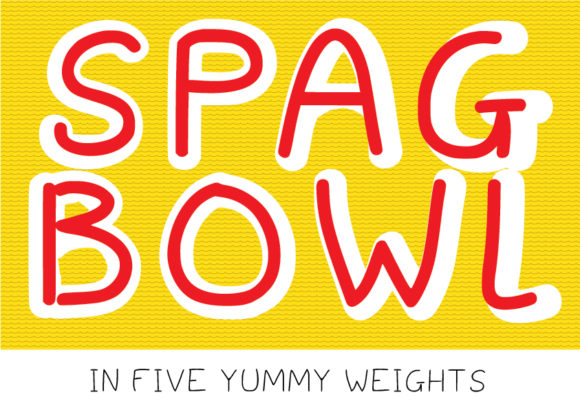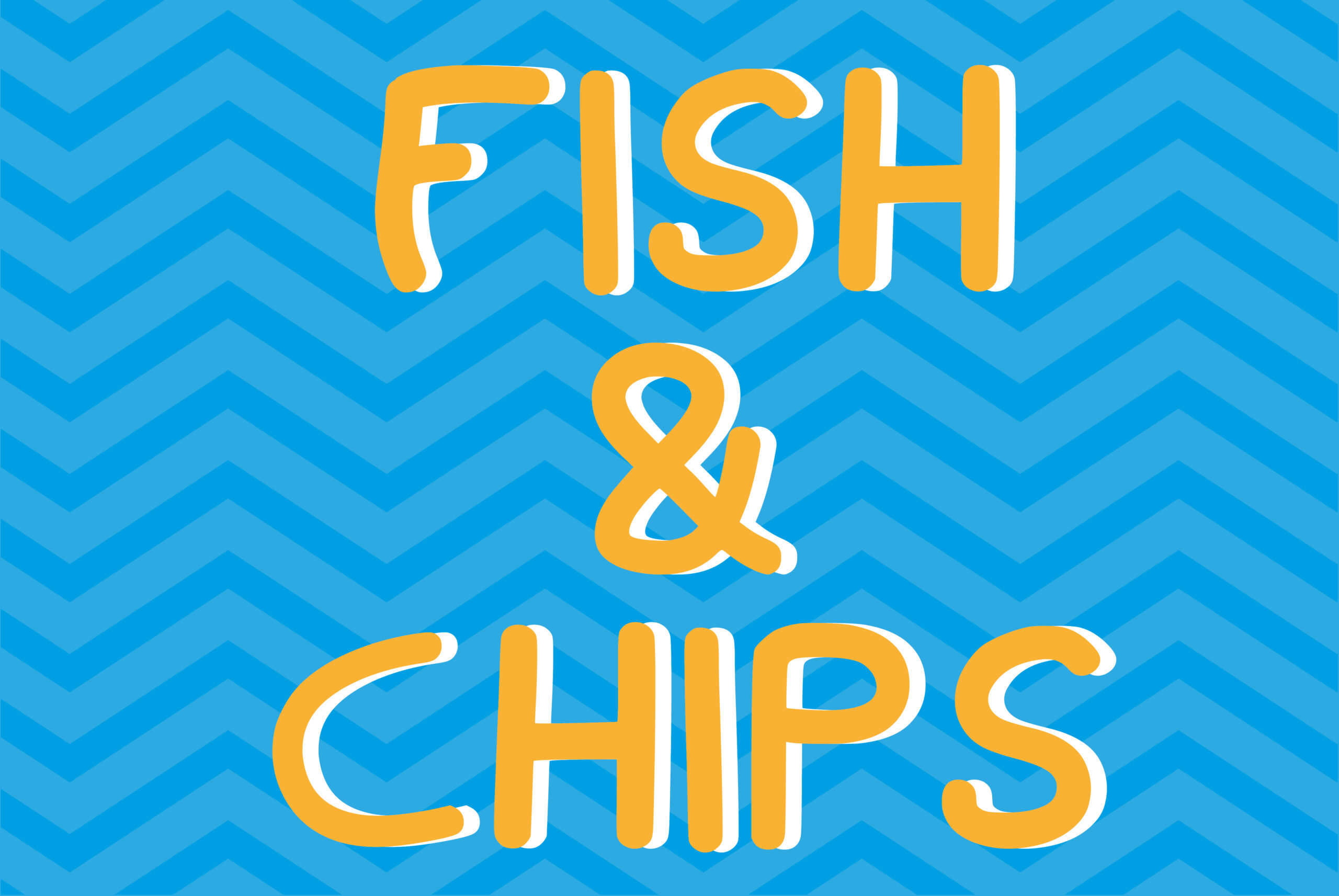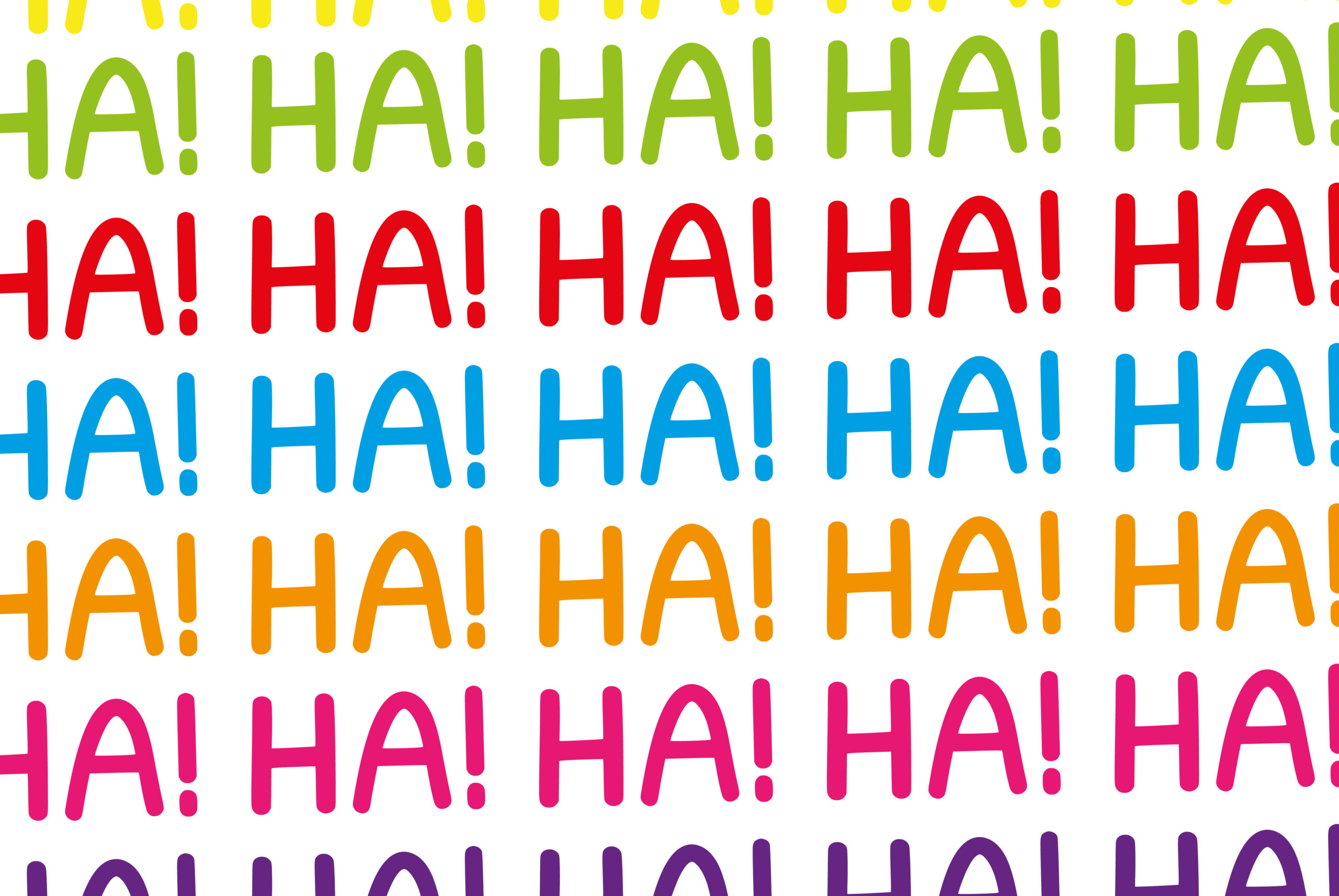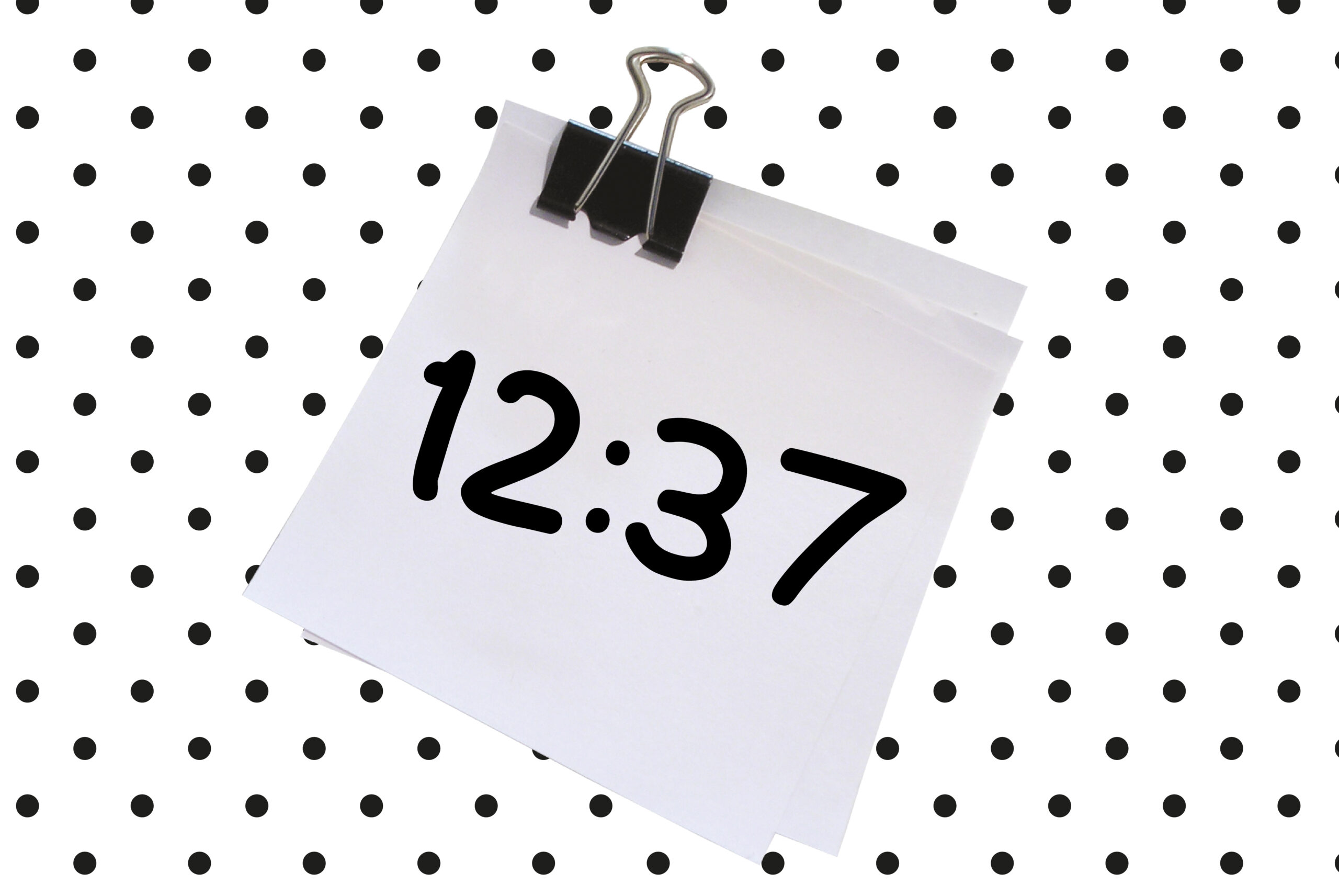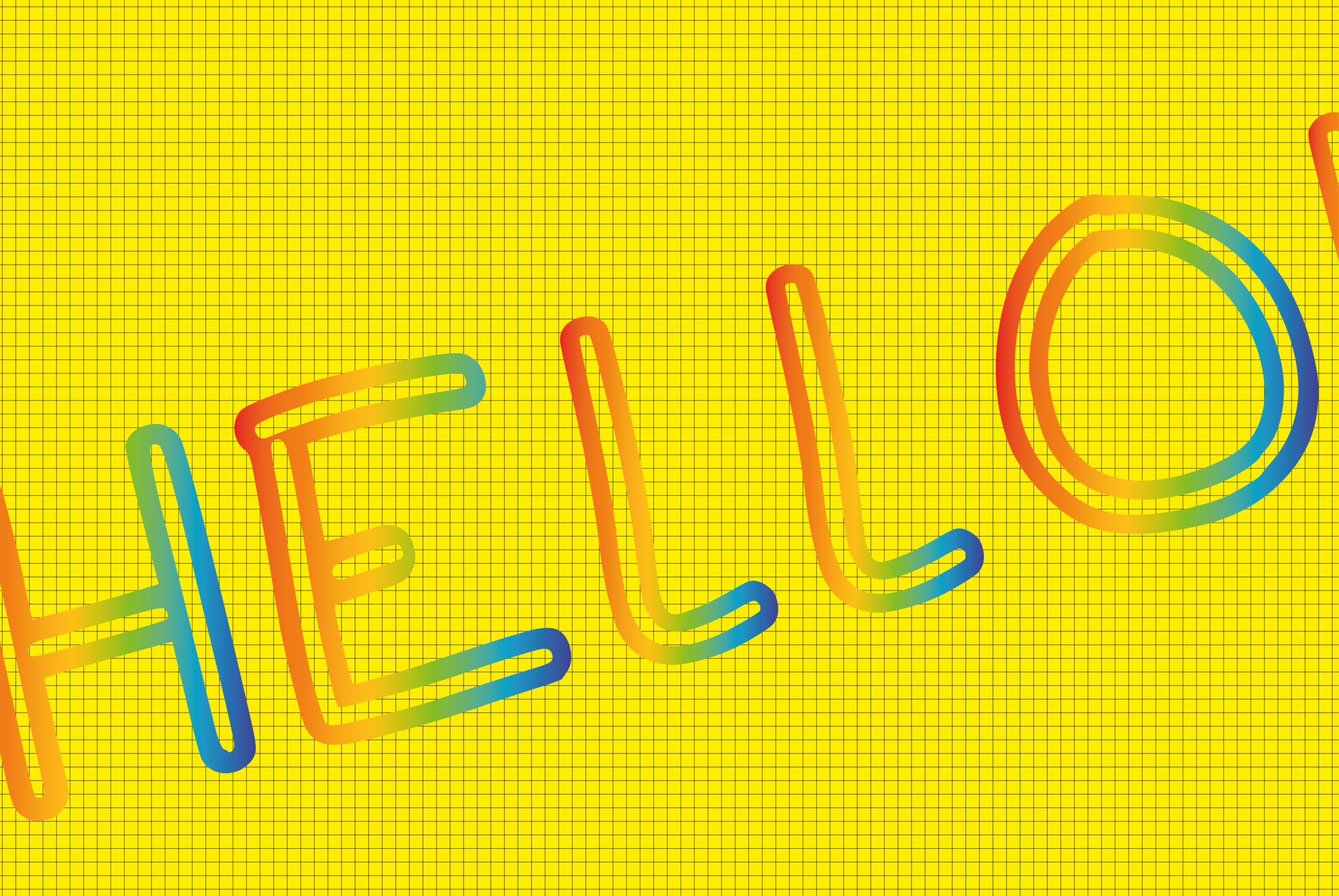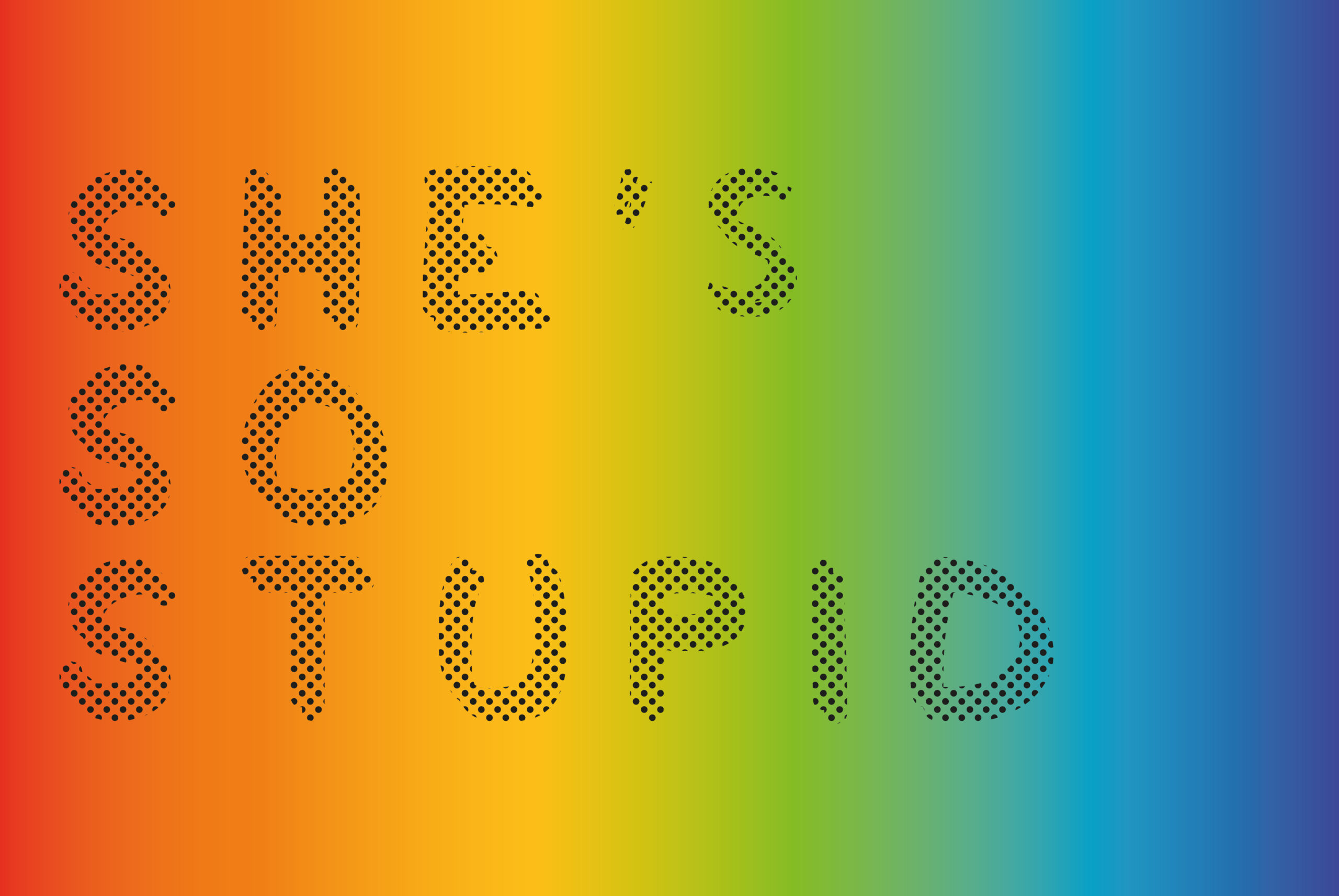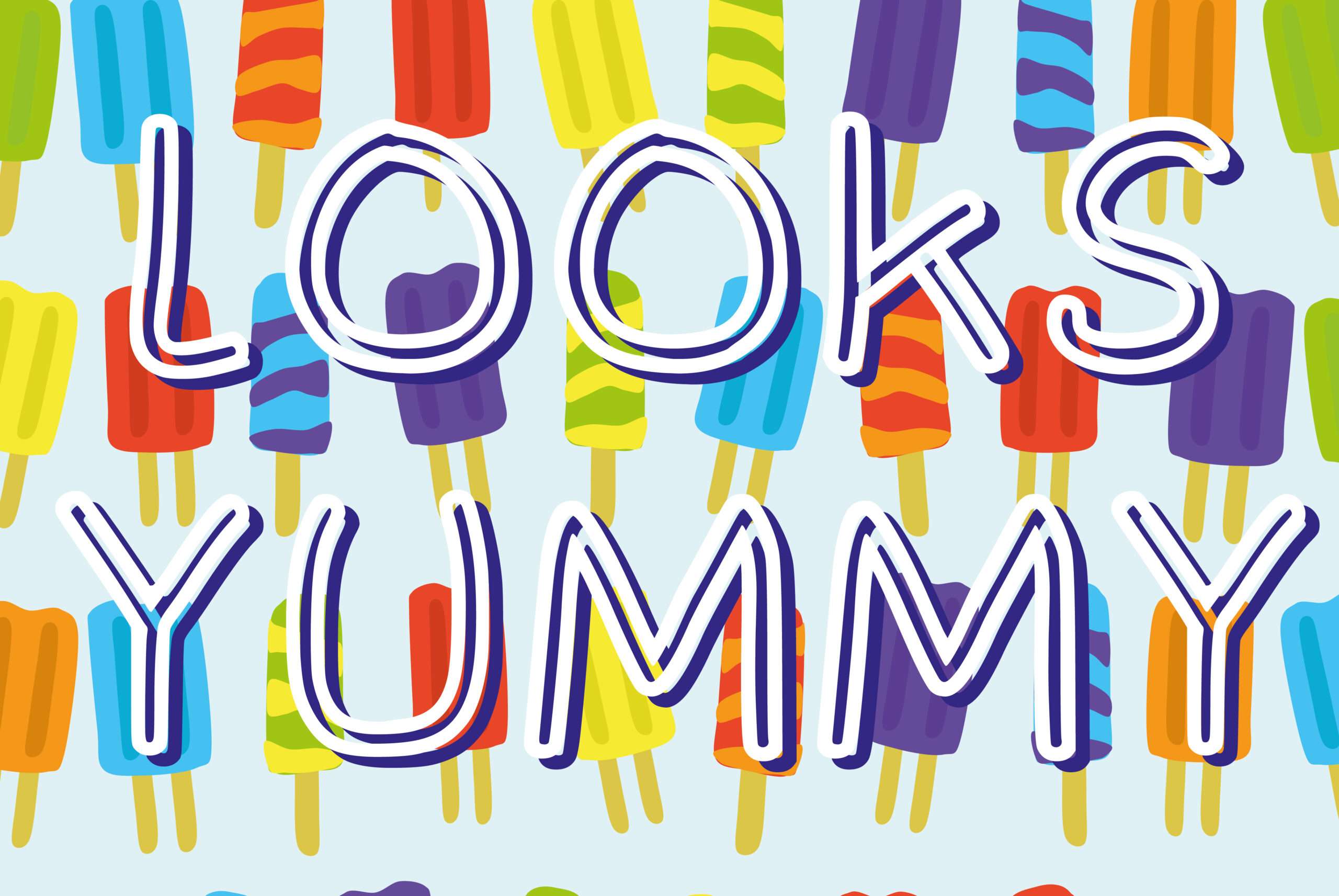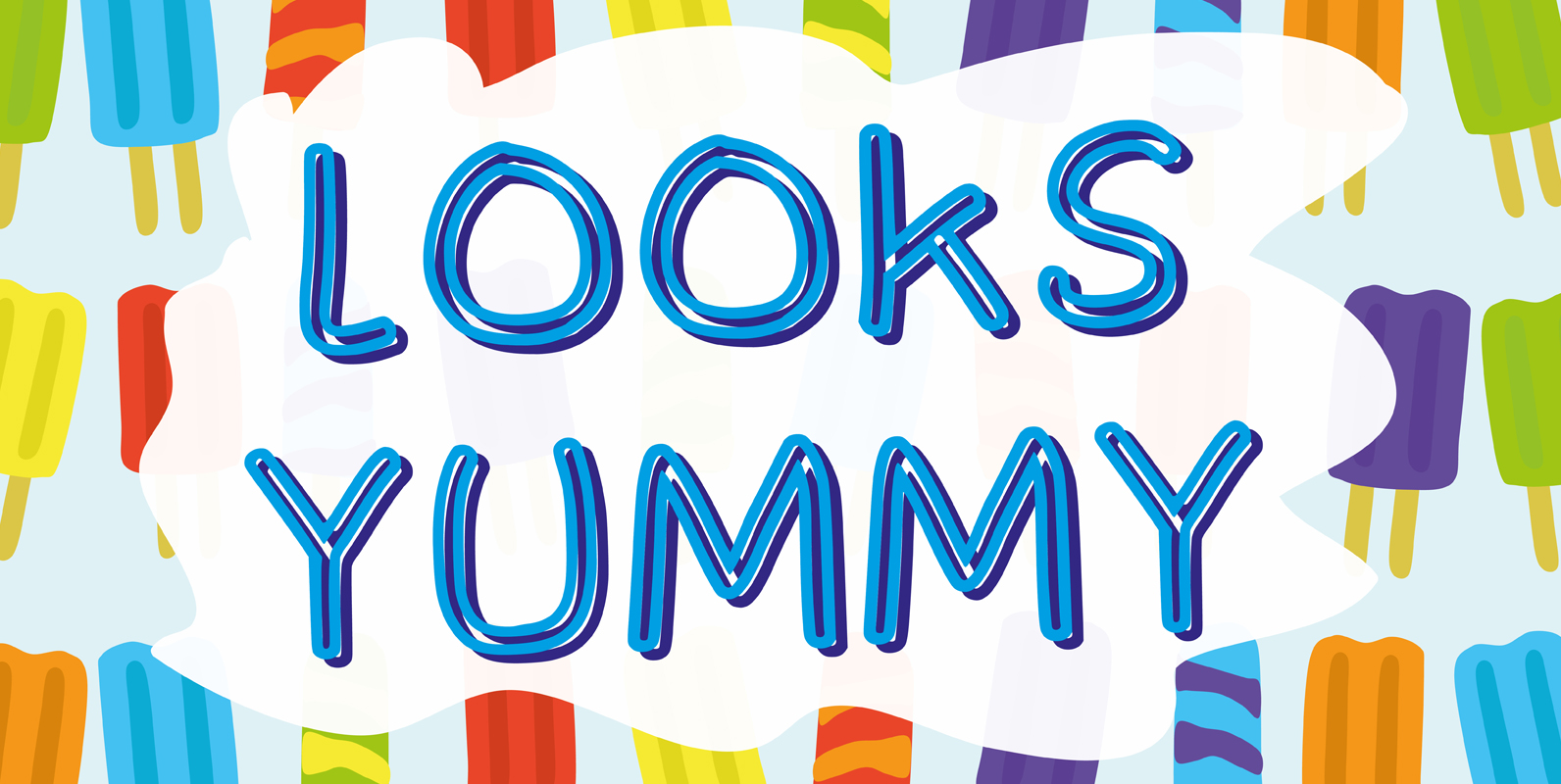
Spagbowl Font
About Spagbowl Font
Two Part Font Family
Hungry for a fun, fat hand written font with a nod towards comic style fonts? Well here is an inspired food font by that lovely Italian dish, slightly wiggly comic font. Good for handwriting or comic sans replacement. Spagbowl is part of a font family, here you will receive regular and it’s partner outlined.